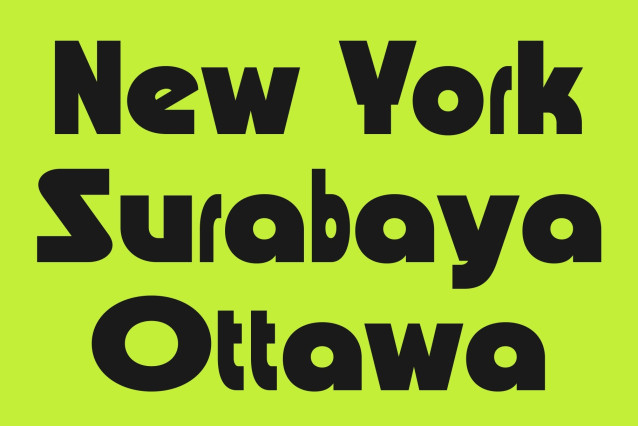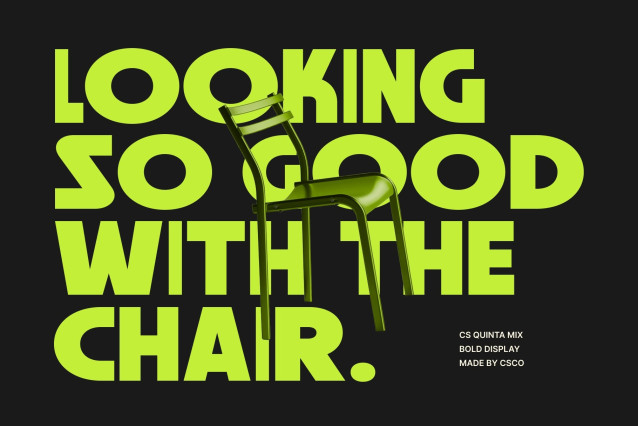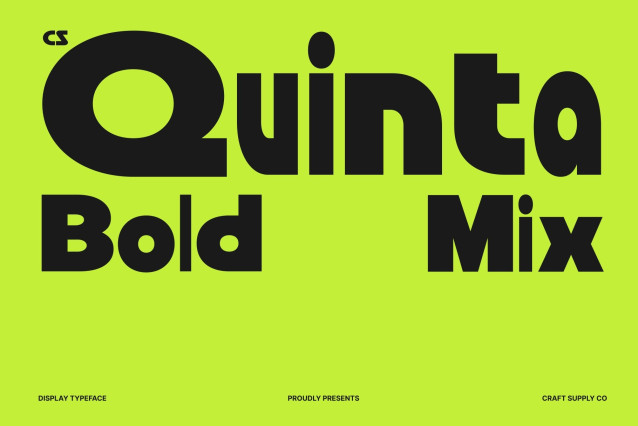
CS Quinta Mix Font
CS Quinta Mix – Bold Techno Sans Serif: Futuristic Energy with Funky Expression
Bold Techno Sans Serif with Mixed Style Character
This is a modern bold sans serif font designed to combine futuristic precision with expressive creative energy. Built with clean geometric structures and techno-inspired forms, this typeface introduces a distinctive mixed-style concept that adds rhythm, contrast, and personality to every composition. It transforms bold typography into a dynamic visual statement that feels modern, stylish, and full of motion.